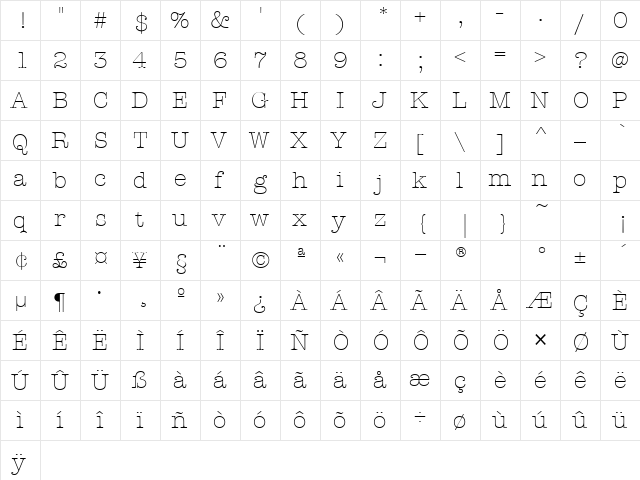
AmTypewriterITCTT Light
| Foundry | International Typeface Corporation |
| Designer | Tony Stan/Joel Kaden |
Design Context for AmTypewriterITCTT Typeface
AmTypewriterITCTT uses fixed-width spacing throughout, giving it the structured, systematic character associated with coding environments and technical documentation. The delicate stroke weight brings airiness and refinement to layouts.